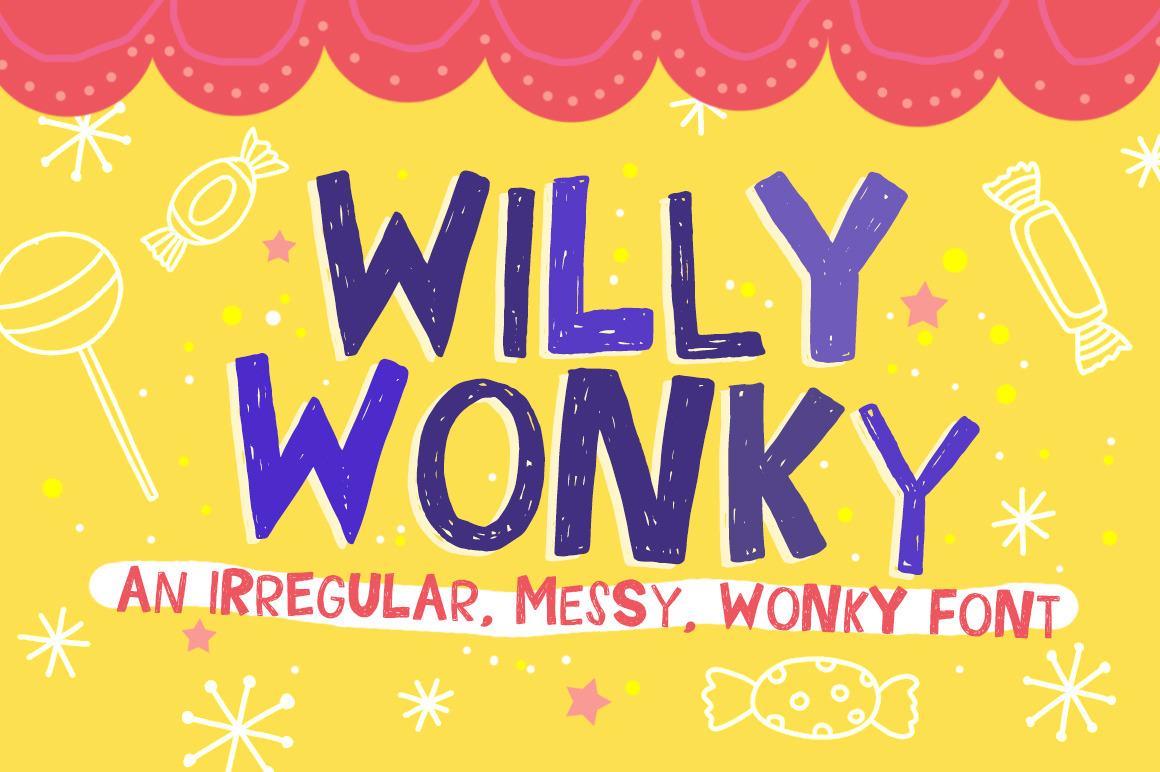
Willy Wonky Font
Crazy, irregular, messy, and casual, Willy Wonky is just that-- a quirky, eccentric font that's perfect for adding that zing to your design projects: posters, magazines, food recipes, party invitations, and all other things that need this fun display type!
Tip: use ALtErNATinG caps for maximum effect to spice up your work!
- All uppercase
- All lowercase
- Numerals and punctuation